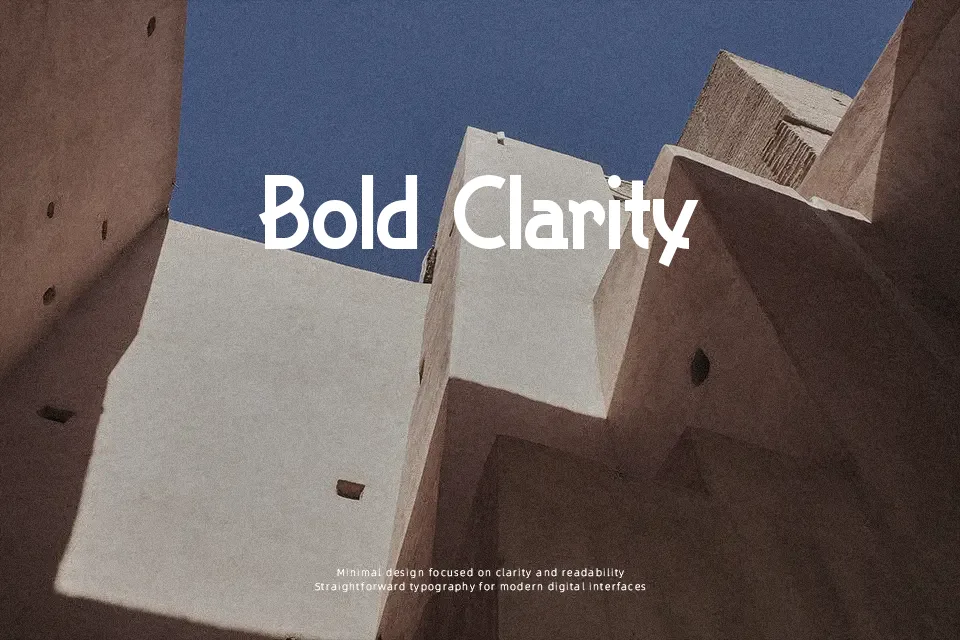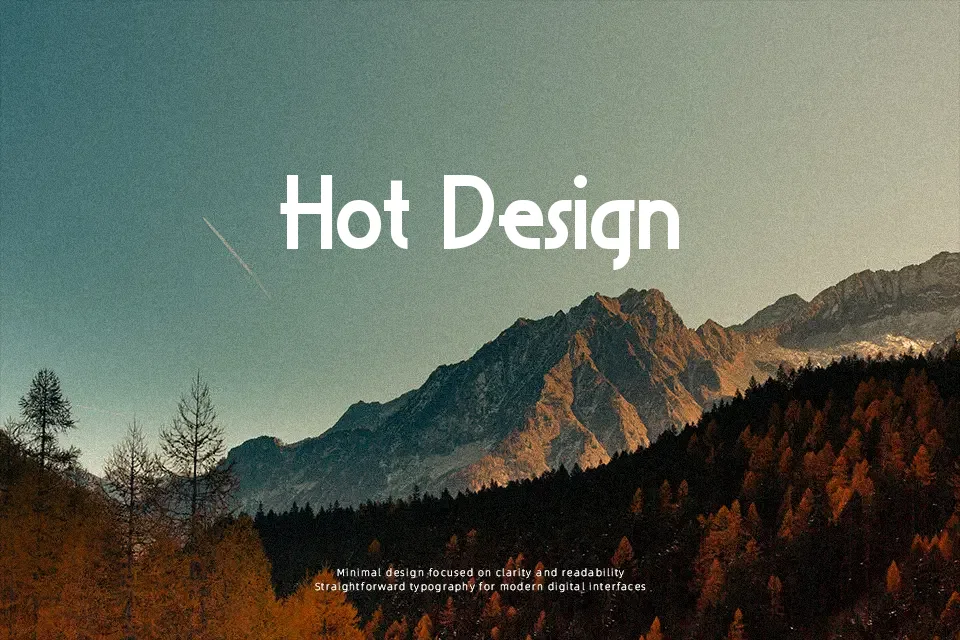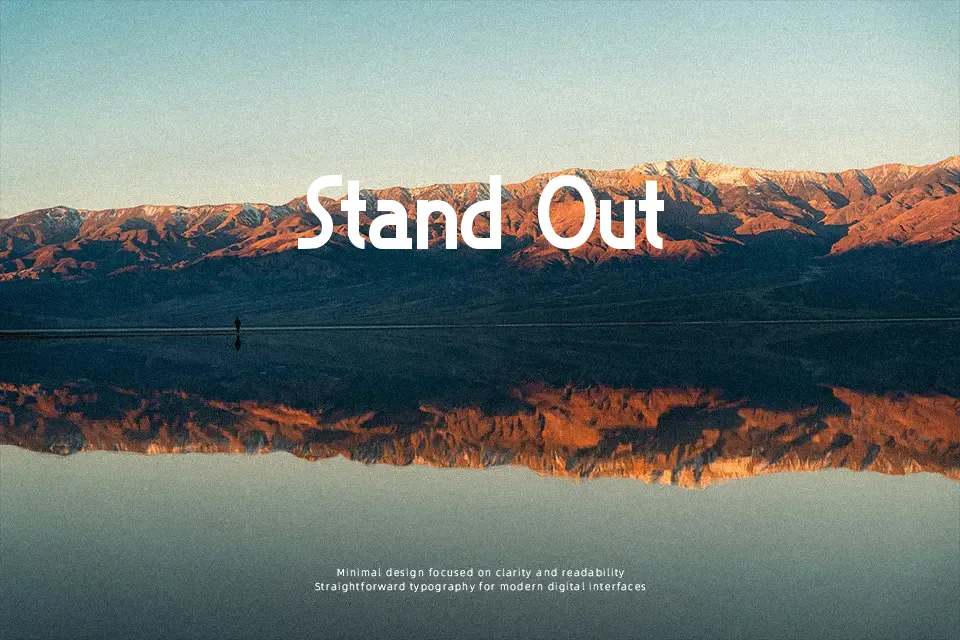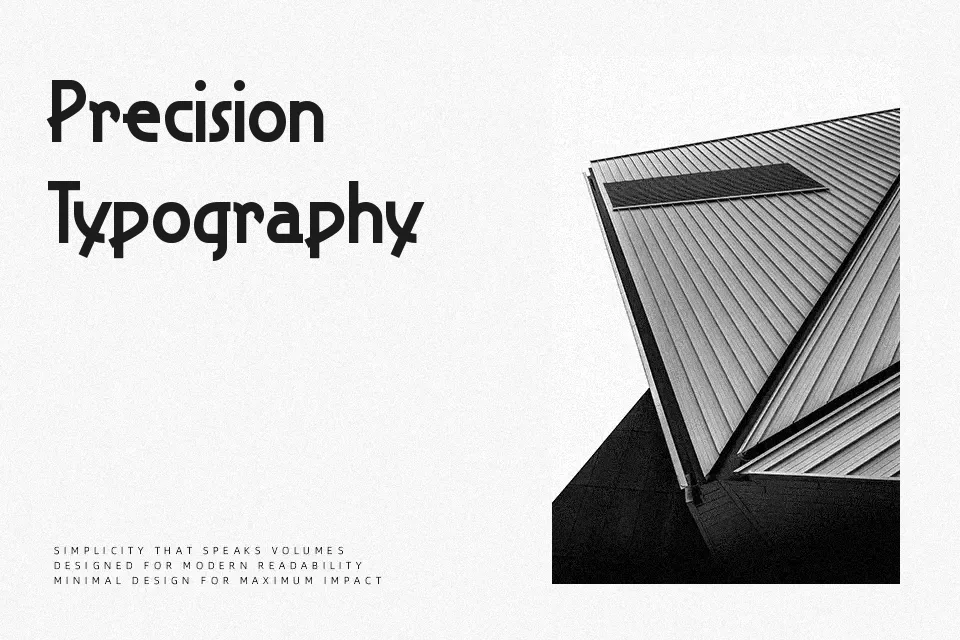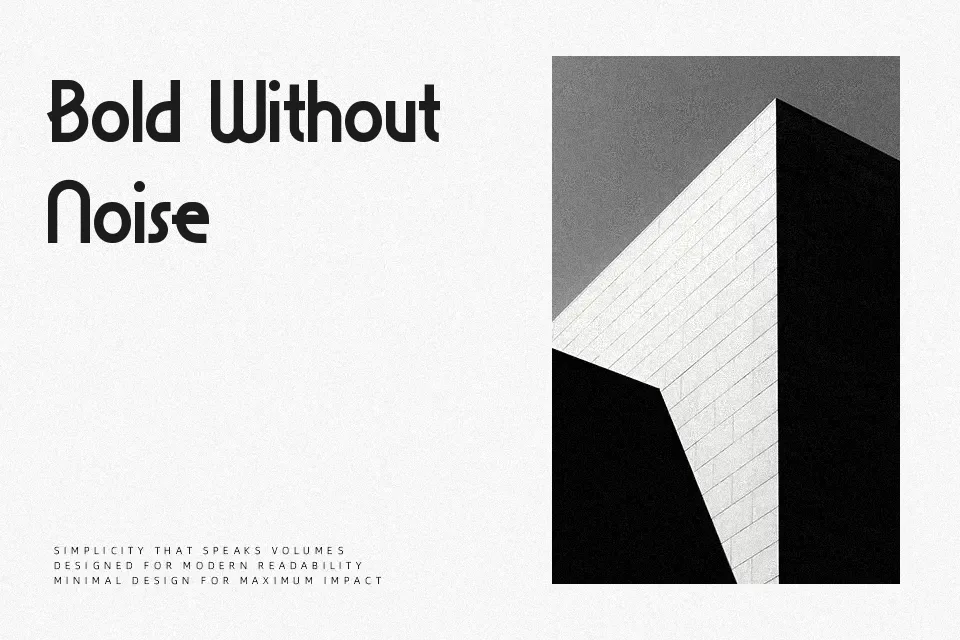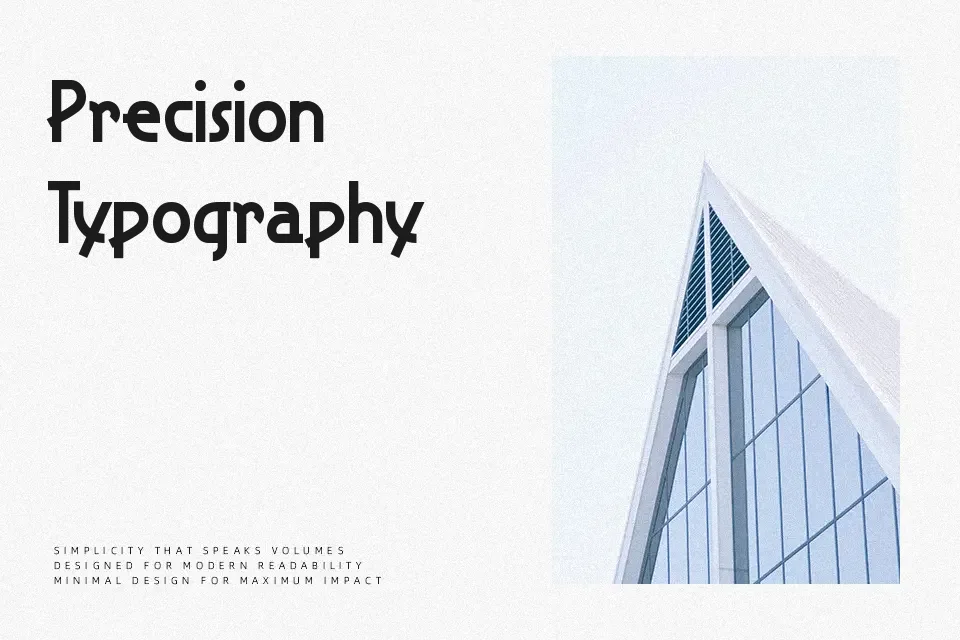
Snappy Service Font
Snappy Service Font introduces a lively mid-century commercial display style characterized by sturdy monoline strokes, balanced letter spacing, and clean geometric curves. The generous proportions and open counters maintain solid character definition across large headlines and prominent titles. In practical applications, the design excels in vintage food truck signage, restaurant branding, and promotional advertising banners where a warm nostalgic tone is desired. However, the heavy stroke weight and specialized retro forms reduce comfort when applied to continuous reading passages. The spacing helps maintain clarity in larger headlines, making the typeface a reliable choice for prominent retro display graphics.
Best For: restaurant menus,vintage packaging,poster headlines,food truck signage
Not Ideal For: long body text,mobile ui microcopy,technical documentation,dense book layouts
Perfect for headline, packaging, and poster, with a bold and display style.